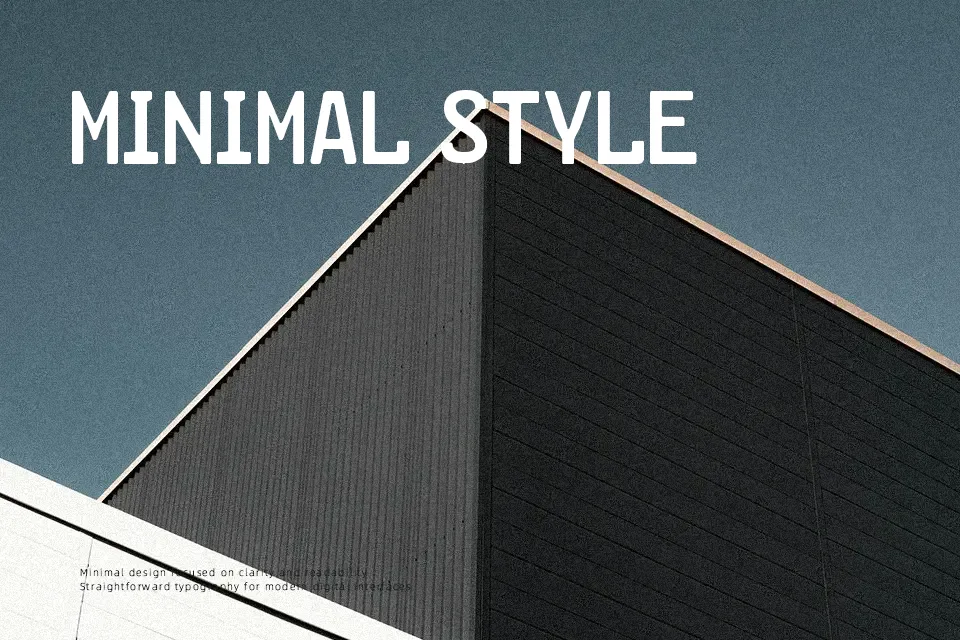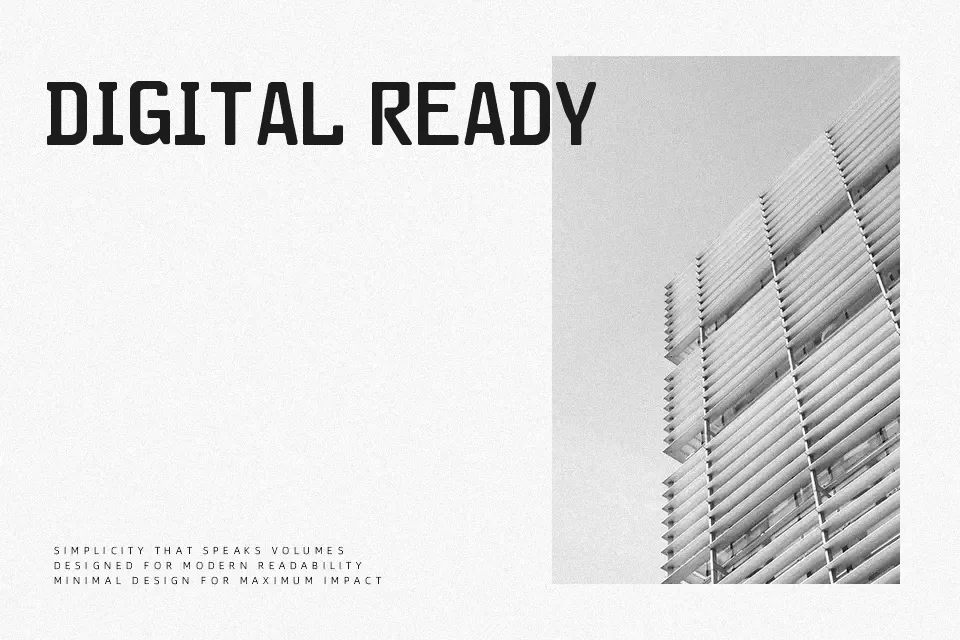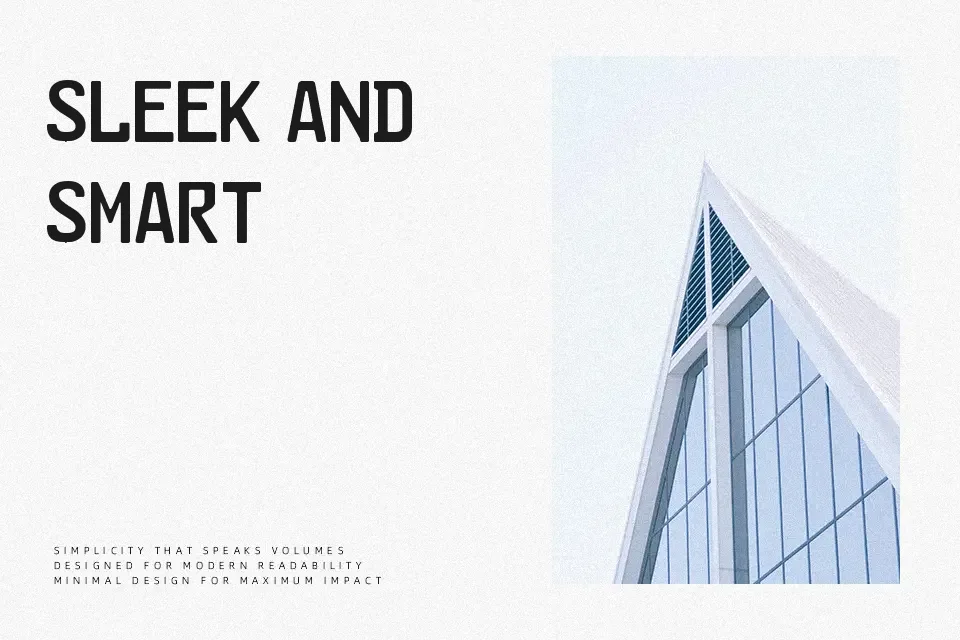
Kraftfahrzeugkennzeichen Font
Designed by Rotary
Built around strict geometry, Kraftfahrzeugkennzeichen uses consistent stroke width, squared terminals, and tightly controlled spacing that mirrors real license plate lettering. The characters feel mechanical and highly legible, giving it a functional, no-nonsense tone rather than decorative flair. It performs convincingly in automotive mockups, prop design for film, or signage that needs an official look. However, the rigid proportions can feel repetitive in longer text blocks, and it lacks the flexibility needed for expressive branding. It works best when authenticity and clarity matter more than personality.
license plate replicas and vehicle graphics
automotive branding visuals
industrial signage mockups
film props requiring official typography
creative or expressive branding
elegant invitations or formal design
highly stylized logos
Perfect for branding, film, and logo, with a classic and monospace style.